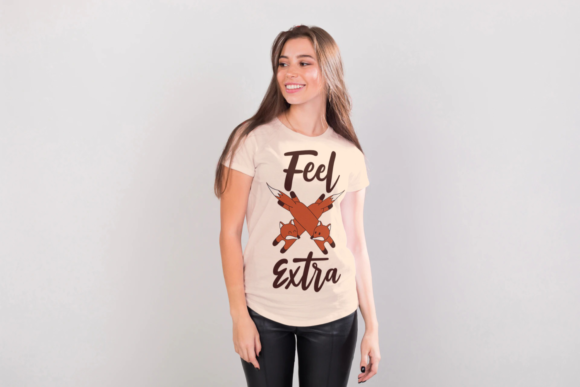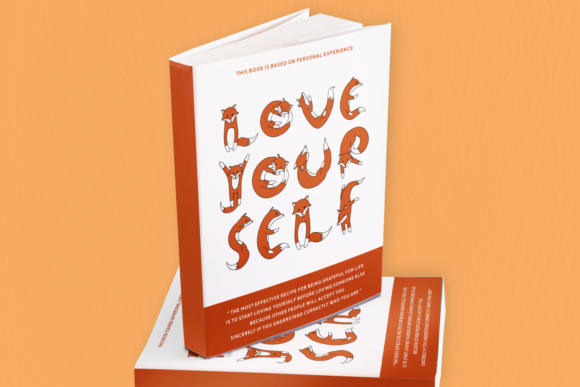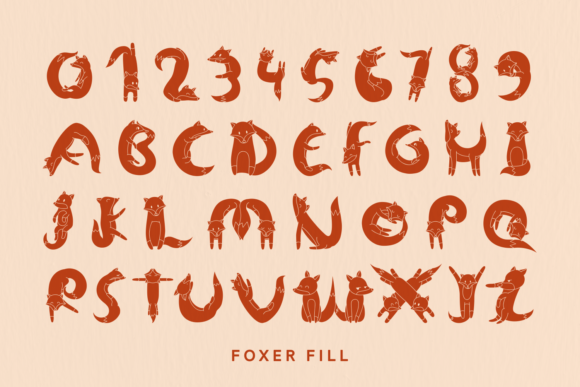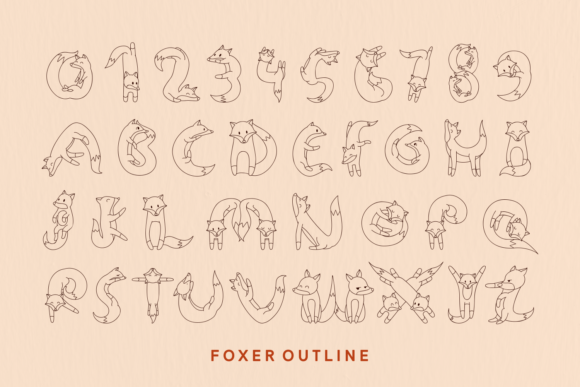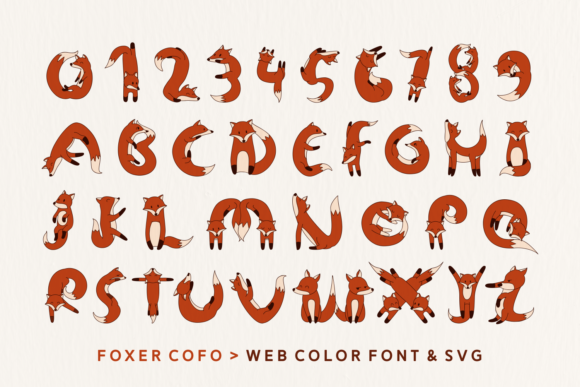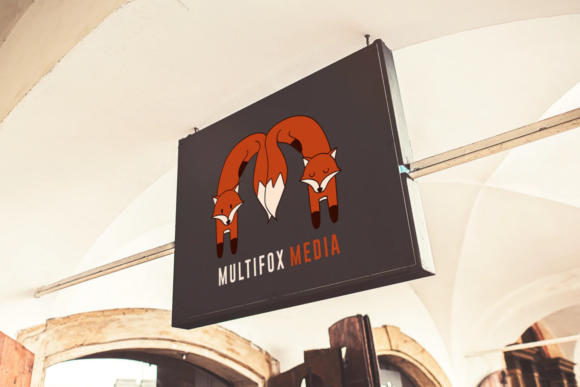
Introducing Foxer Font: The Playful and Adorable Display Font for Designers and Crafters
Are you looking for a font that can add a touch of playfulness and cuteness to your designs? Look no further than Foxer Font, a gorgeous and playful display font featuring incredibly adorable foxes. With its playfully rounded characters, Foxer Font is perfect for creating stunning animal- or wood-themed art, making it an ideal choice for spring-inspired designs.
What Makes Foxer Font So Special?
Foxer Font is more than just a font – it’s a design element that can instantly elevate your creations. Here are some of its key features:
- Adorable Fox Illustrations: Each character in Foxer Font is carefully designed to feature an adorable fox, making it perfect for designs that require a touch of whimsy and playfulness.
- Playfully Rounded Characters: The rounded characters in Foxer Font give it a friendly and approachable feel, making it perfect for designs that require a softer touch.
- Multiple Variations: Foxer Font comes in three different versions: filled, outlined, and black-and-white. This allows you to experiment with different styles and add a unique touch to your designs.
Foxer Font is an ideal choice for designers and crafters who want to add a touch of personality to their creations. Whether you’re designing:
- Spring-themed Art: Foxer Font is perfect for creating stunning spring-inspired art, from floral arrangements to woodland scenes.
- Animal-themed Designs: With its adorable fox illustrations, Foxer Font is a natural fit for animal-themed designs, from wildlife posters to cute animal graphics.
- Wood-themed Crafts: Foxer Font’s rustic and playful feel makes it perfect for wood-themed crafts, from wooden signs to hand-painted crates.
Tips for Using Foxer Font
To get the most out of Foxer Font, here are some tips to keep in mind:
- Experiment with Different Sizes: Foxer Font looks great in large and small sizes, so don’t be afraid to experiment with different sizes to find the perfect fit for your design.
- Mix and Match with Other Fonts: Foxer Font pairs well with other fonts, so try mixing and matching it with other fonts to create a unique and interesting design.
- Use it for Headlines and Titles: Foxer Font is perfect for headlines and titles, where its playfulness and cuteness can really shine.
Foxer Font is a unique and versatile display font that’s perfect for designers and crafters who want to add a touch of playfulness and cuteness to their creations. With its adorable fox illustrations, playfully rounded characters, and multiple variations, Foxer Font is sure to become a favorite in your design arsenal. So why wait? Download Foxer Font today and start creating stunning animal- or wood-themed art that’s sure to delight!
Whether you’re a professional designer or a crafter looking for a fun and creative way to express yourself, Foxer Font is the perfect choice. So go ahead, get creative, and let Foxer Font help you bring your designs to life!